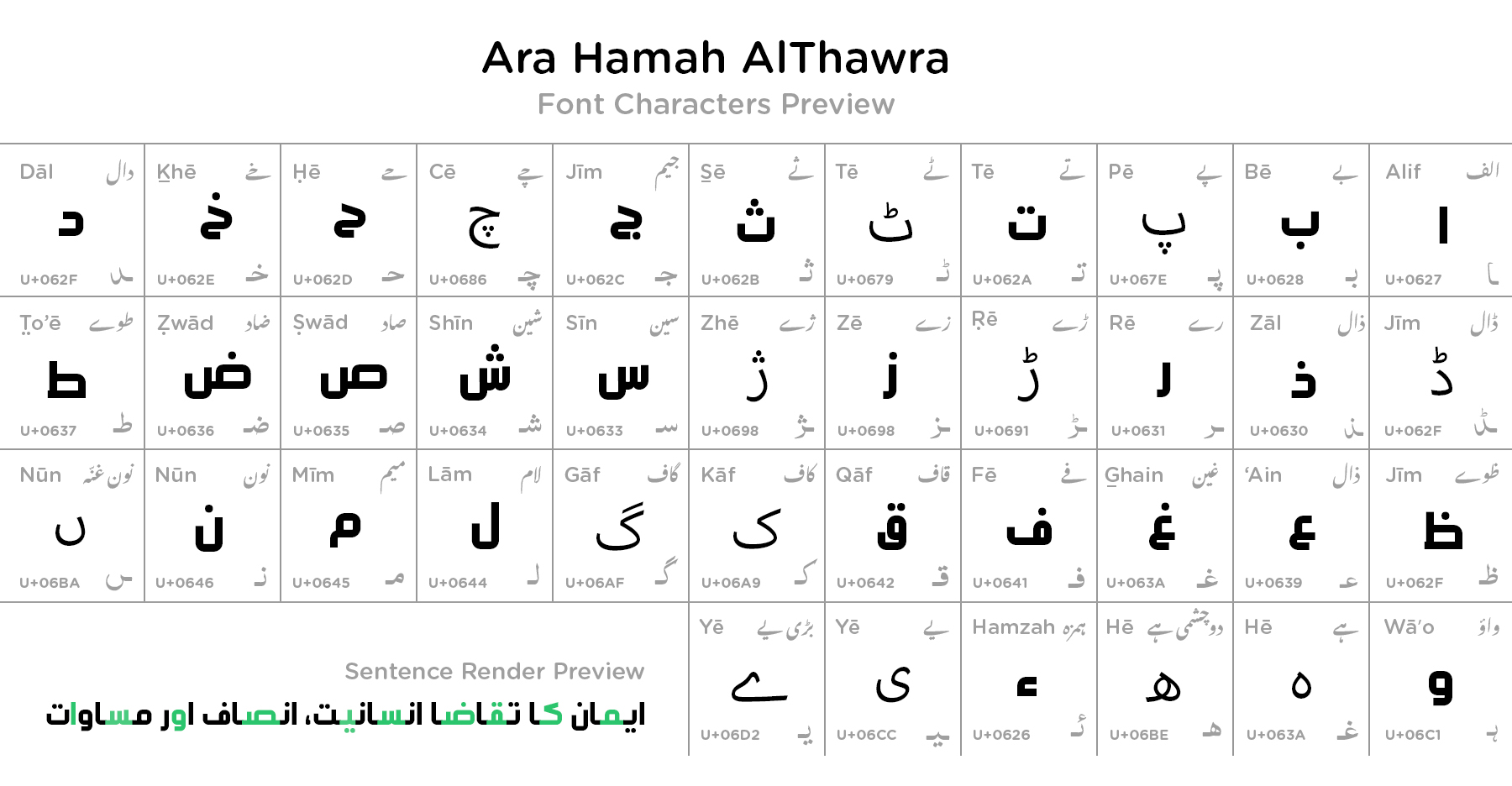
Ara Hamah AlThawra
Ara Hamah AlThawra is an extra-bold and wide Arabic font with a modern outlook, giving off an authoritative appearance. It was designed by Nabil MRAD, a font designer from Hamah, Syrian Arab Republic, and released on 10 October 2024. It is not strictly a calligraphic typeface, but it follows the rules of Arabic scripting languages. It offers a compact baseline with a horizontal emphasis, adding a flair of modern design elements to its basic design. Manufactured by iSktFalConS and ZakDesign, this font supports various languages, including Arabic, Latin, Urdu, and Persian, ensuring compatibility across various typographic projects with linguistic needs. With 344 characters and 336 glyphs, the font offers uniform thickness throughout the letterforms. Moreover, its striking and solid strokes make a visual impact on your text.
Ara Hamah AlThawra offers soft and rounded corners, giving it a welcoming touch. However, due to its thick appearance and congested letters, the text could look a little condensed. The monospaced letter spacing makes it look aligned and suitable for short texts that need immediate attention. This font offers a balanced typographic solution, whether used for titles, headings, logos, branding, posters, and book covers.